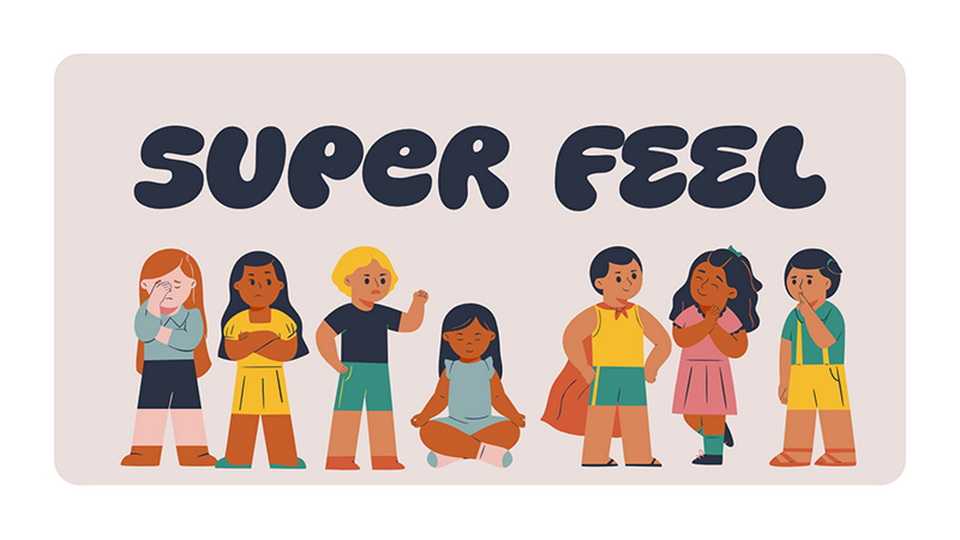
Download Super Feel font, a funky, hand-crafted typeface that radiates a retro 70s vibe with a modern twist. Its playful, flowing curves and exaggerated letterforms dance across the page.